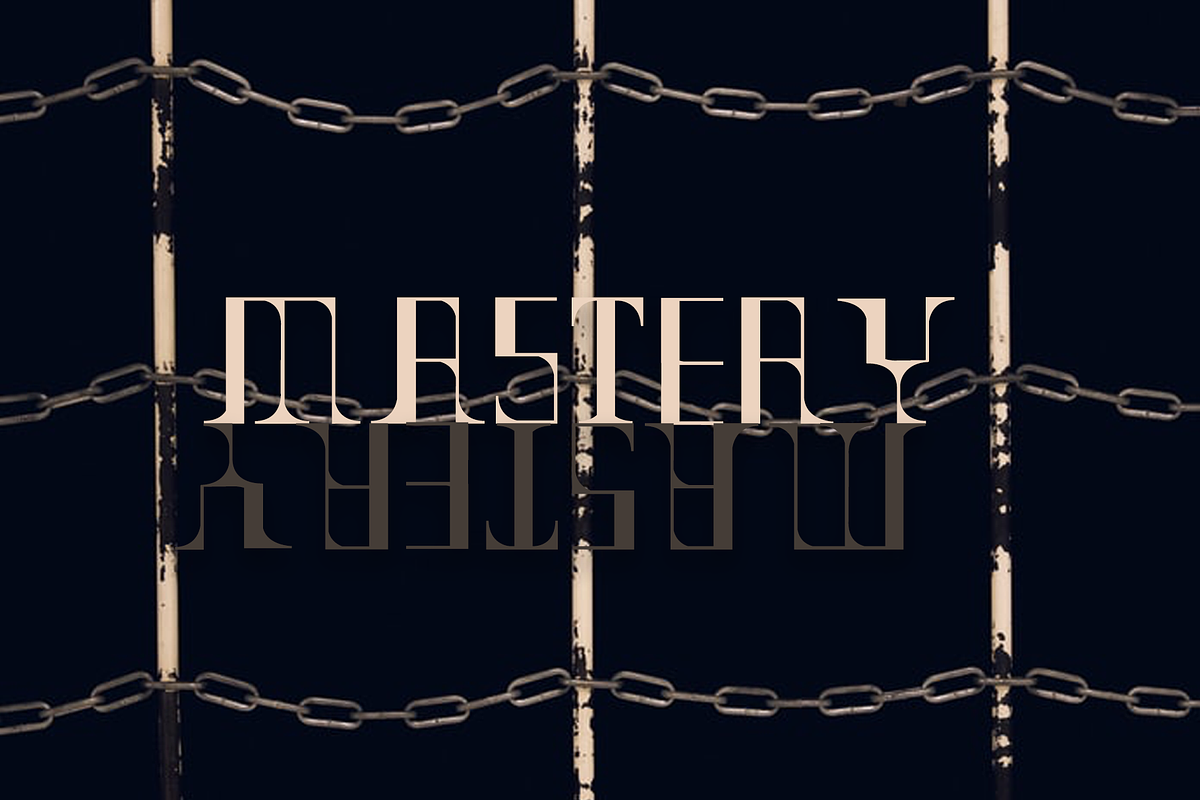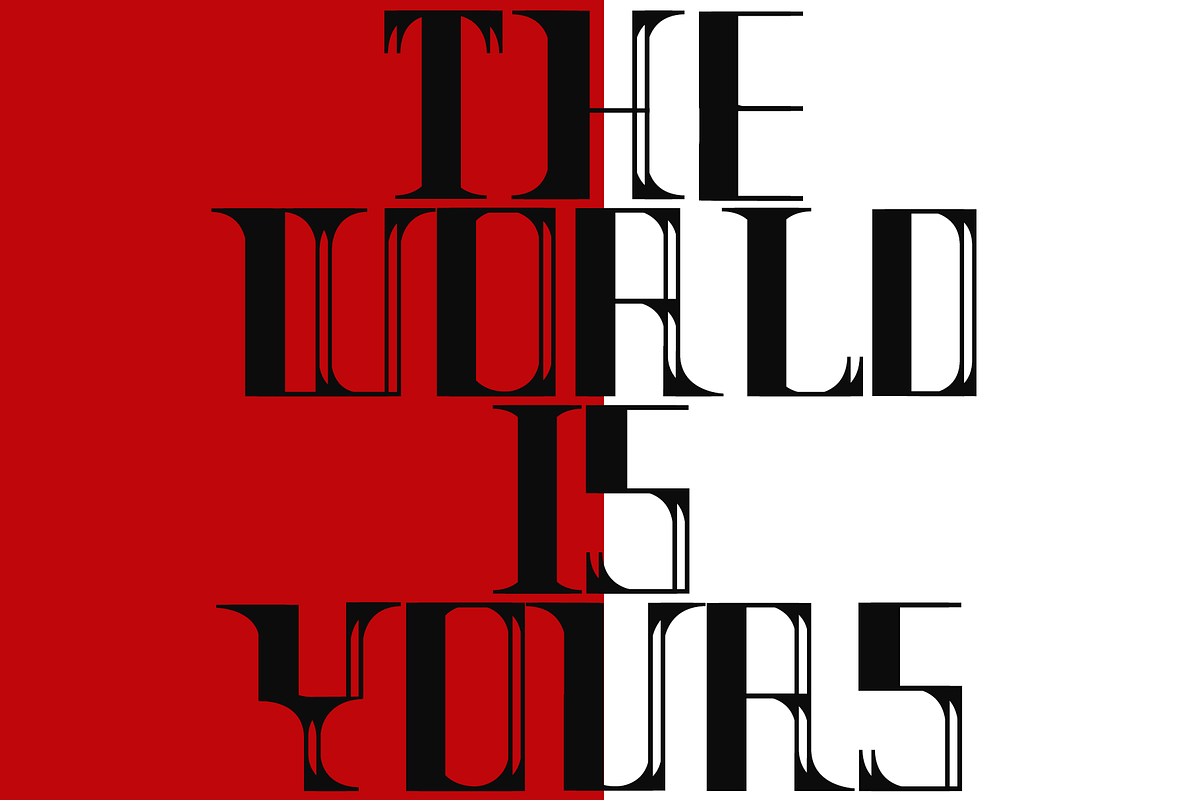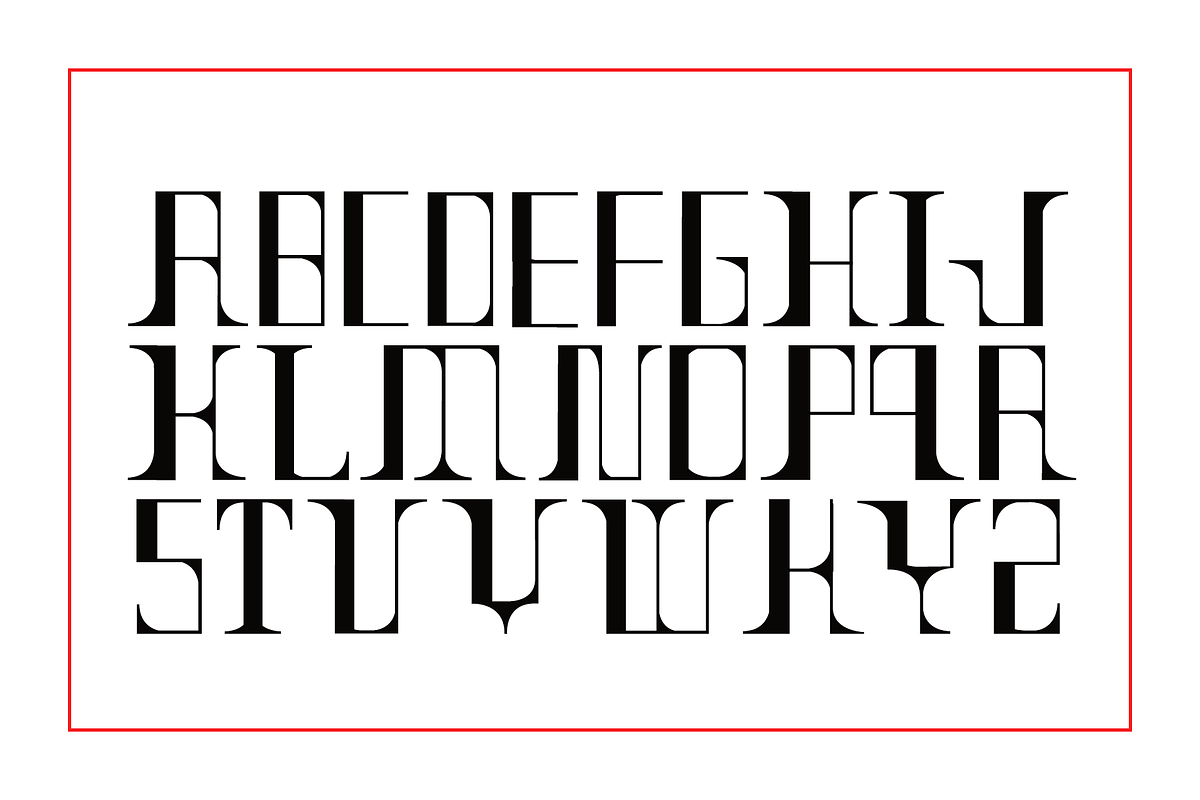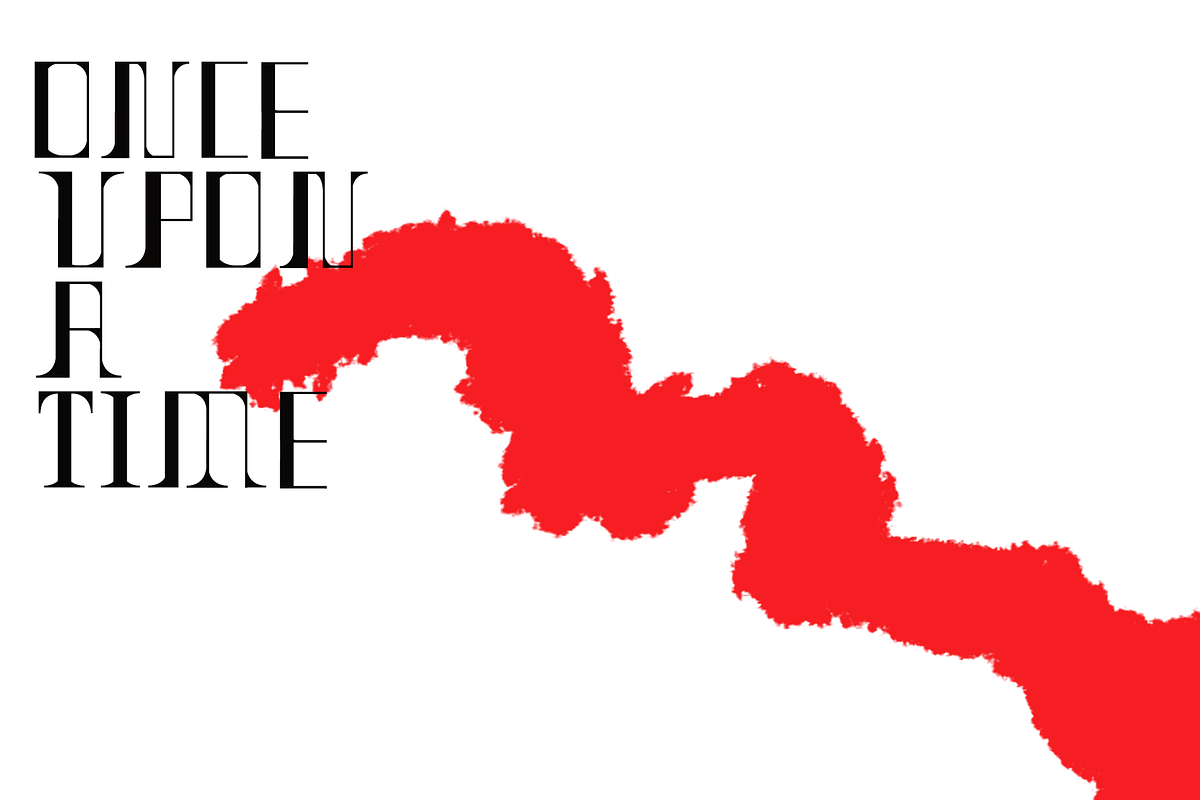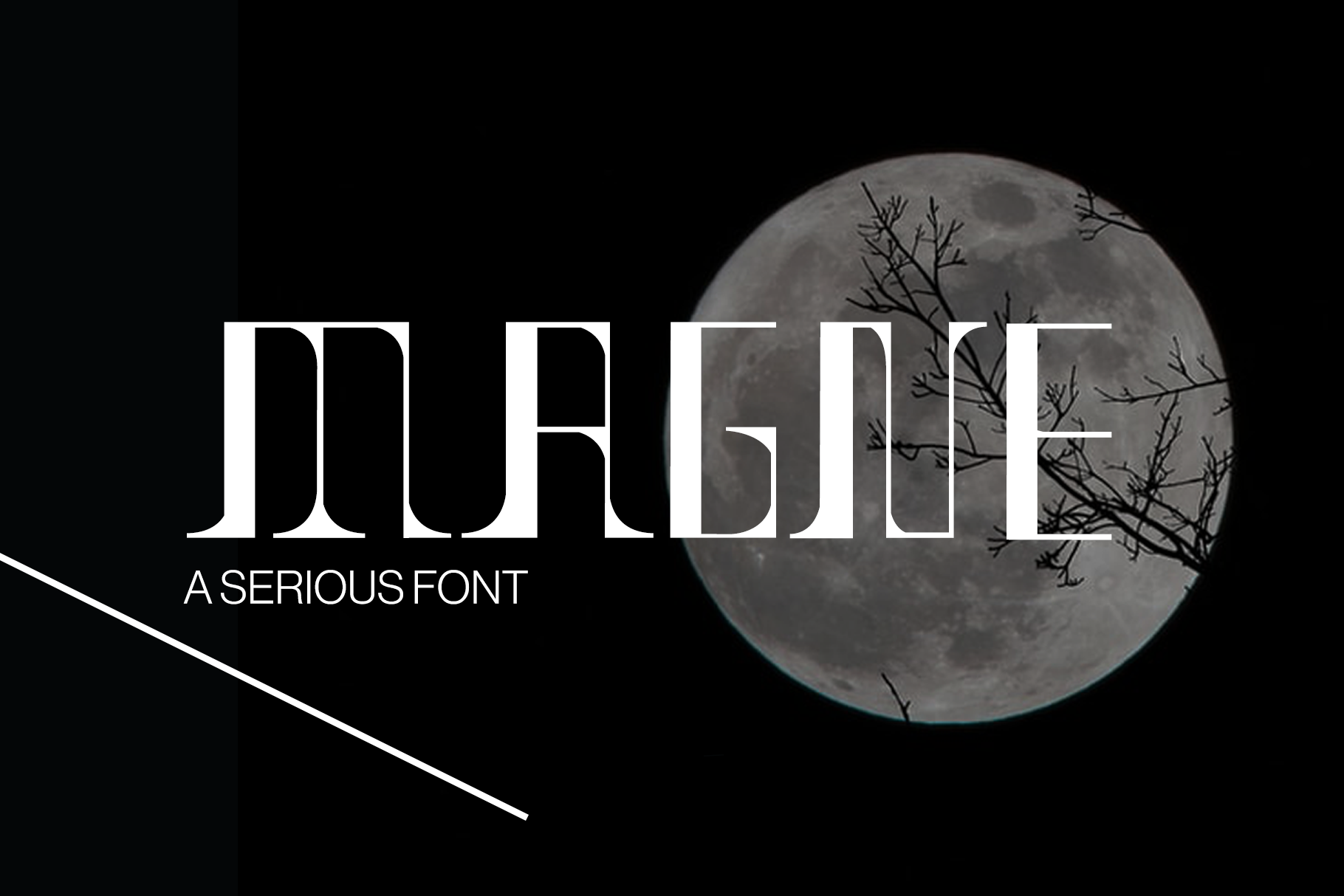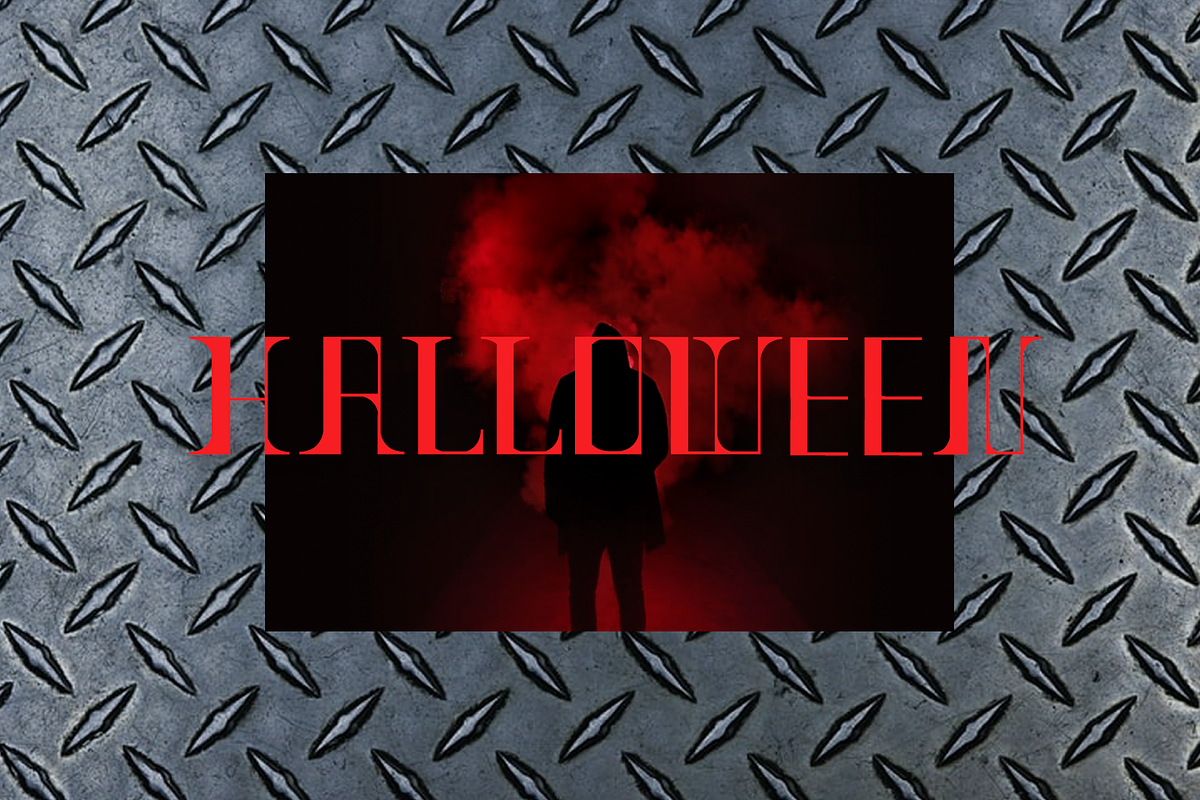
Magne Font
Magne is an equal height, sharp font family. It is only uppercase letters. Has a serious, scary, geometric, sharp look and feel. It would be perfect for logos, book and film covers.